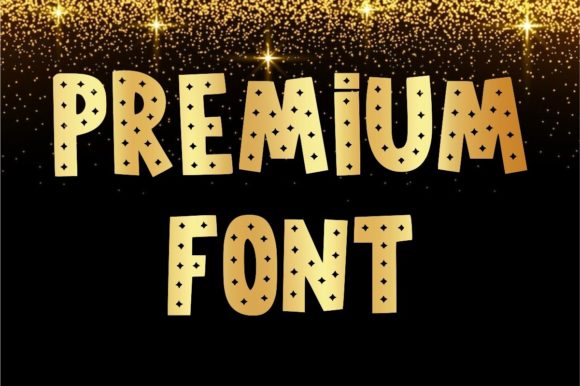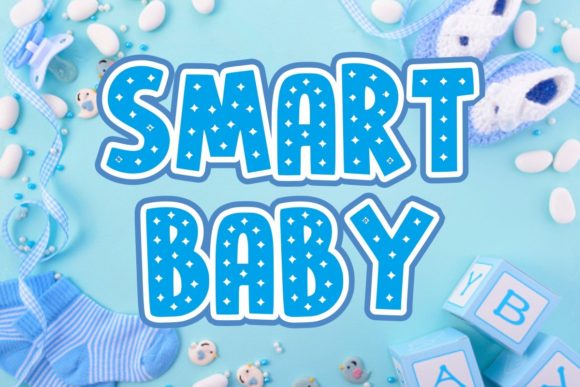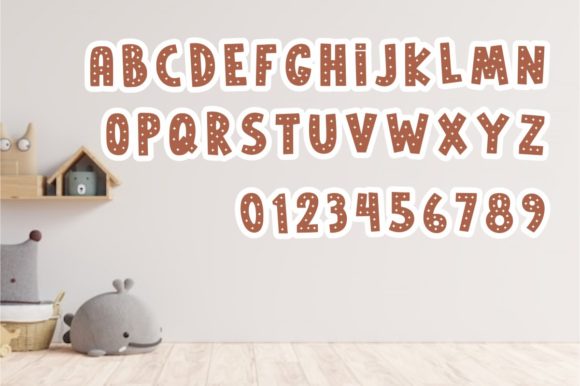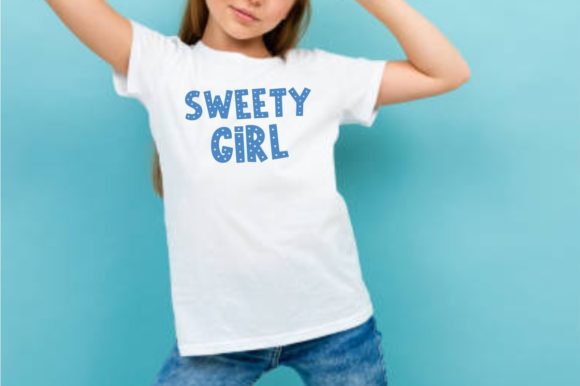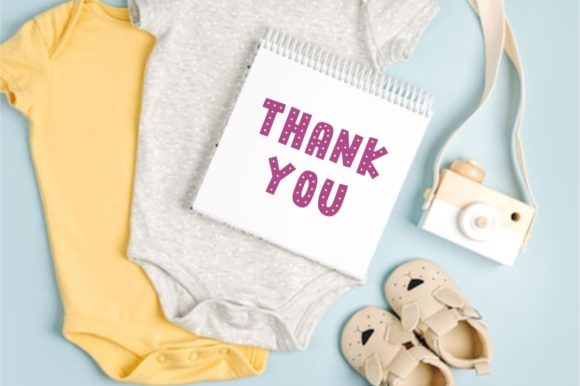
Introduction to Rain Stars Font
Remember the excitement of rummaging through your mom’s craft box, discovering a box of colorful stickers and glittery letters that brought your childhood creations to life? For designers, that same sense of wonder can be found in the discovery of a new, versatile font that adds a touch of whimsy to any project. Enter the Rain Stars Font, a delightful display font that’s perfect for designers of all levels looking to add a playful twist to their creative projects.
Whether you’re working on a digital design, creating a presentation, or crafting a handmade card, the Rain Stars Font is a valuable resource that’s sure to become a favorite. Its transparent background and high-quality design make it a must-have for any design project, and the best part? It’s available for free download, making it an accessible addition to your design library.
Key Features of Rain Stars Font
- High-quality design resource ideal for creative projects, available for free download
- Unique, hand-drawn style with a transparent background, allowing for easy customization
- Includes a variety of glyphs, including uppercase and lowercase letters, numbers, and special characters
- Perfect for designers and artists seeking a creative, whimsical touch for their designs
Honest Review: Rain Stars Font
I recently had the chance to try out the Rain Stars Font, and I must say it’s been a delightful addition to my design resource library. ✨ The font is perfect for any creative project that requires a touch of whimsy and magic. It’s available as a free download, which is always a plus in my book!
One of the standout features of Rain Stars Font is its transparent background, making it super easy to layer over other design elements without any hassle. I’ve used it for a few different projects, and it always looks great. The font itself is high-quality, with crisp lines and a beautiful, dreamy feel to it.
- Perfect for creative projects that require a touch of whimsy
- Transparent background makes it easy to layer over other design elements
- High-quality font with crisp lines and a beautiful feel
- May not be suitable for formal or professional projects
- Some users may find the font a bit too playful or distracting
Overall, I’m really impressed with Rain Stars Font. It’s a great addition to any designer’s library, and I’d definitely recommend it to anyone looking for a unique and creative font. ⚠️ Just be aware of its limitations, and use it accordingly.